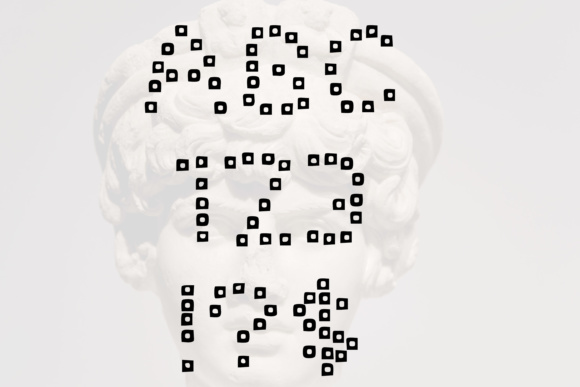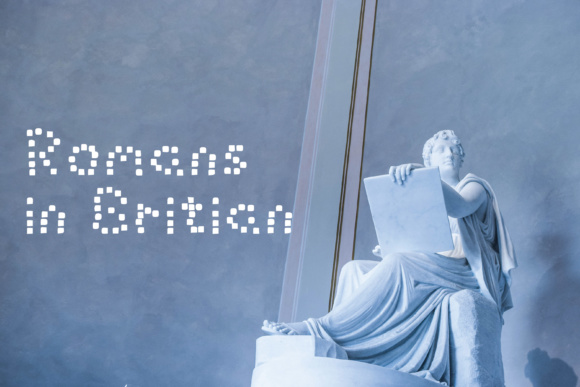
Mosaic Font
About Mosaic Font
Fun mosaic style squares uneven to give a Roman esq floor mosaic but with friendly comic twist. In four different weight make up a fun and casual font which can be mixed and matched fora funky looking style, combine light to black for a impactful design